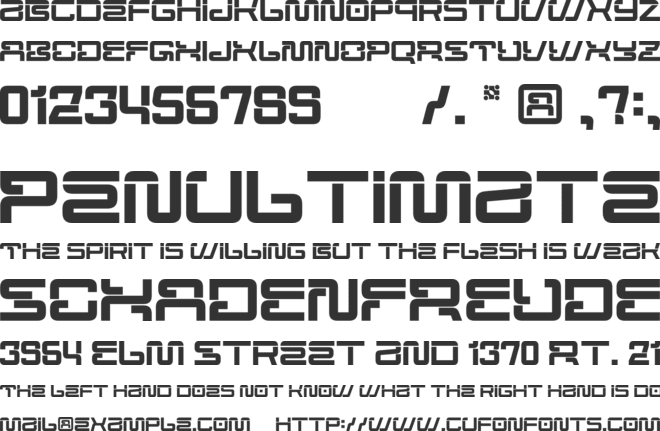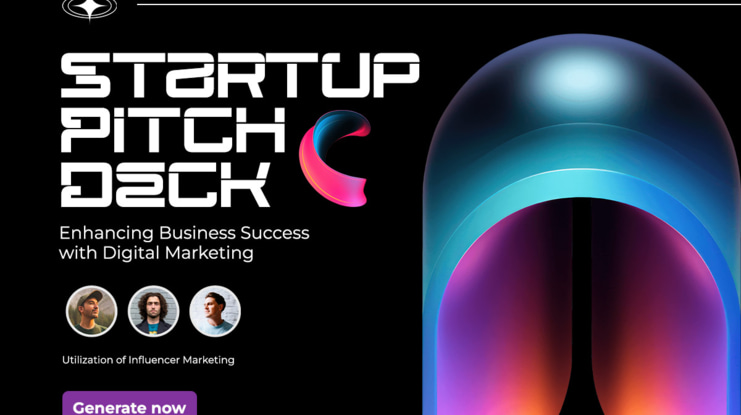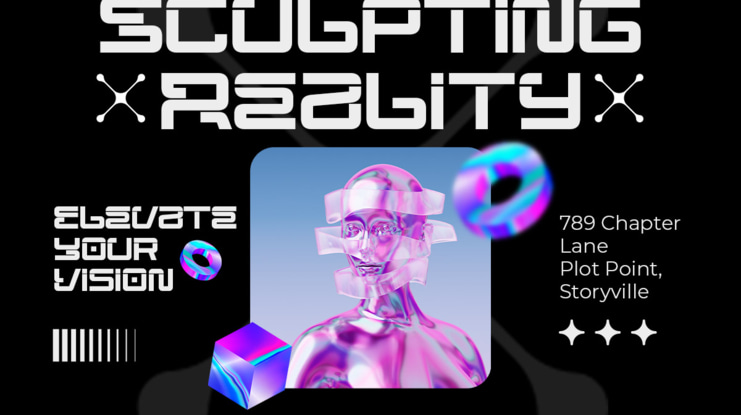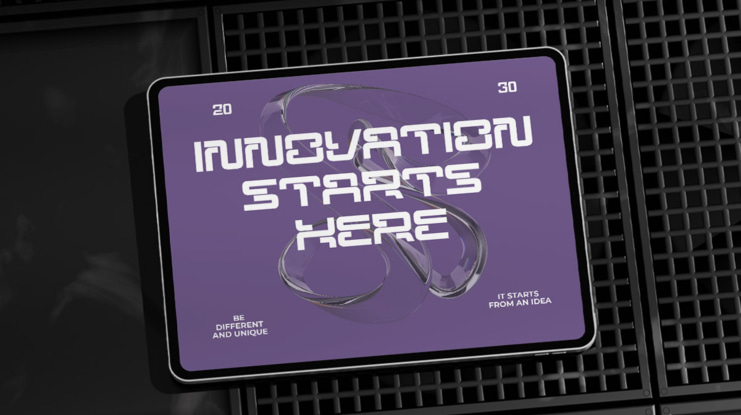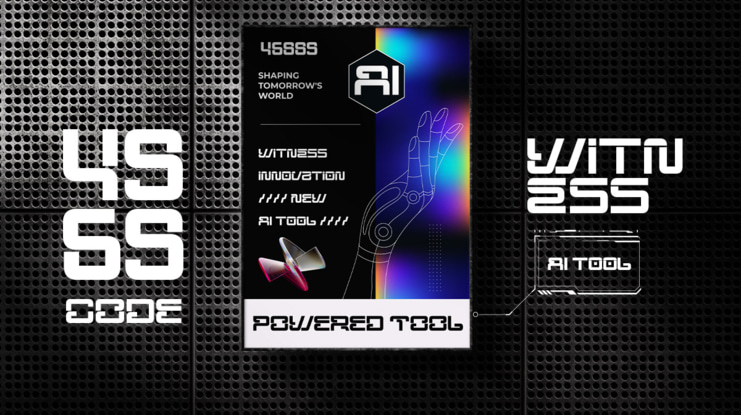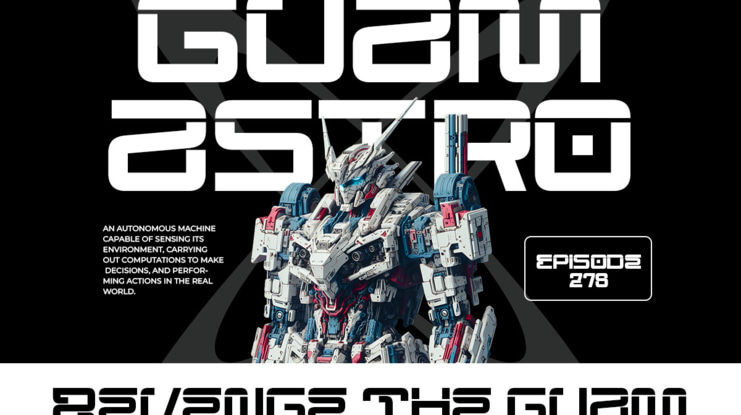
Mega Binory Font
Mega Binory is a cutting-edge modern futuristic sci-fi font designed to bring a bold, high-tech aesthetic to your creative projects. Inspired by digital interfaces, cyberpunk visuals, and advanced technology, this font delivers a sleek, geometric structure with sharp edges and dynamic letterforms that instantly capture attention.